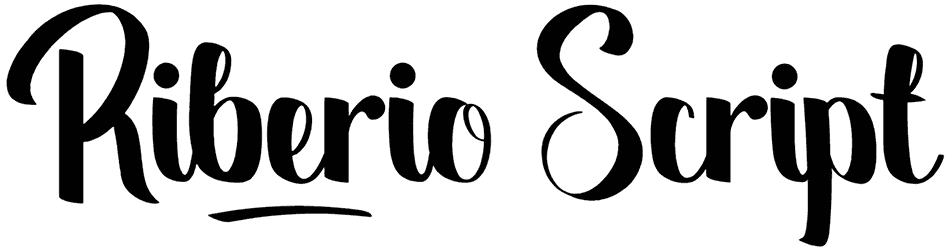
Riberio Script Font
By choosing a realistic manuscript look, you can depict many designs, and this handwritten font will provide you with this chance. Riberio Script has a smooth hand-lettering face that can be matched with any formal or informal design. Even without numbers or punctuation marks, this script font will remain a nice showcase for many items, such as posters, tattoos, planners, and whatnot.